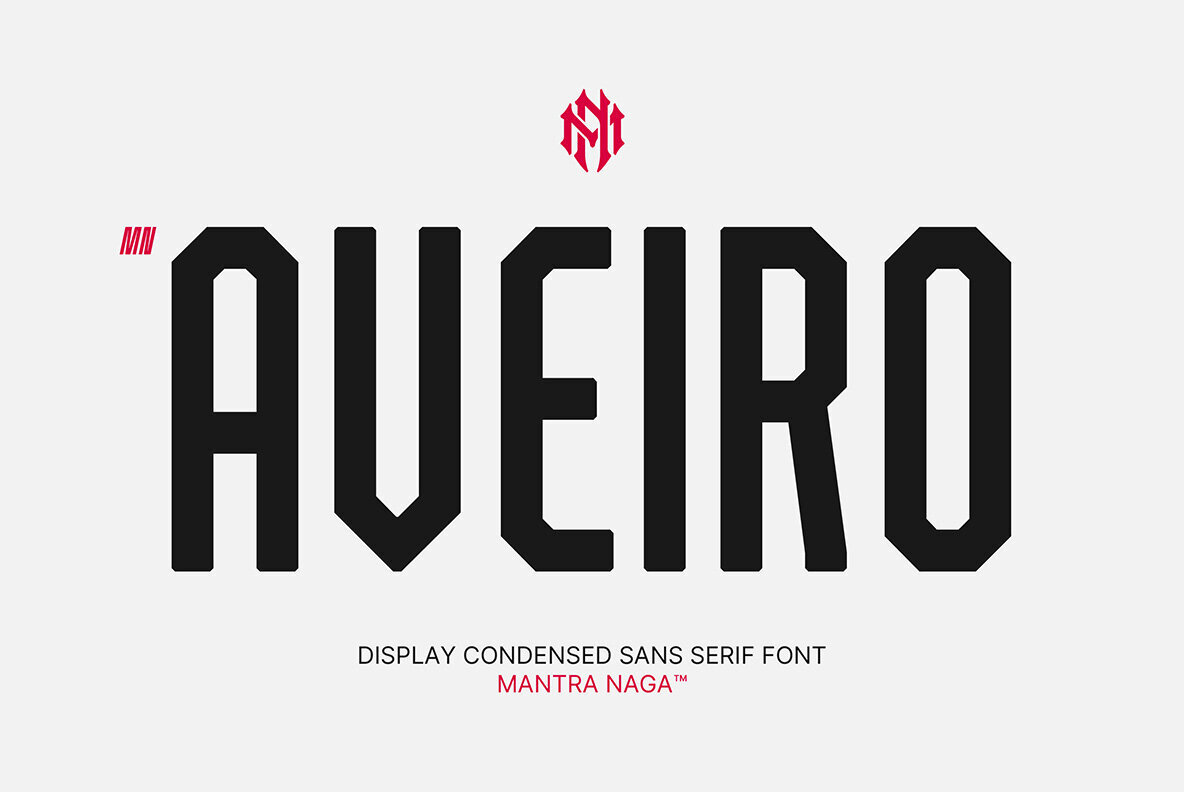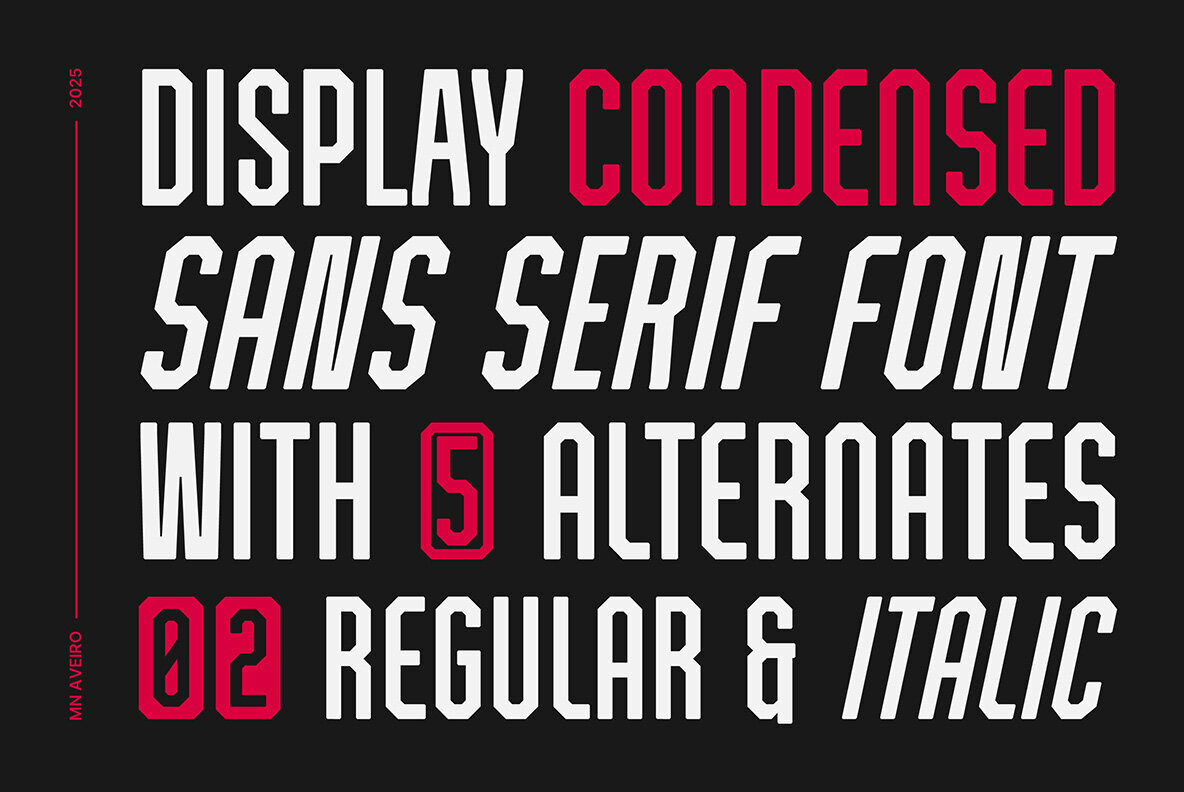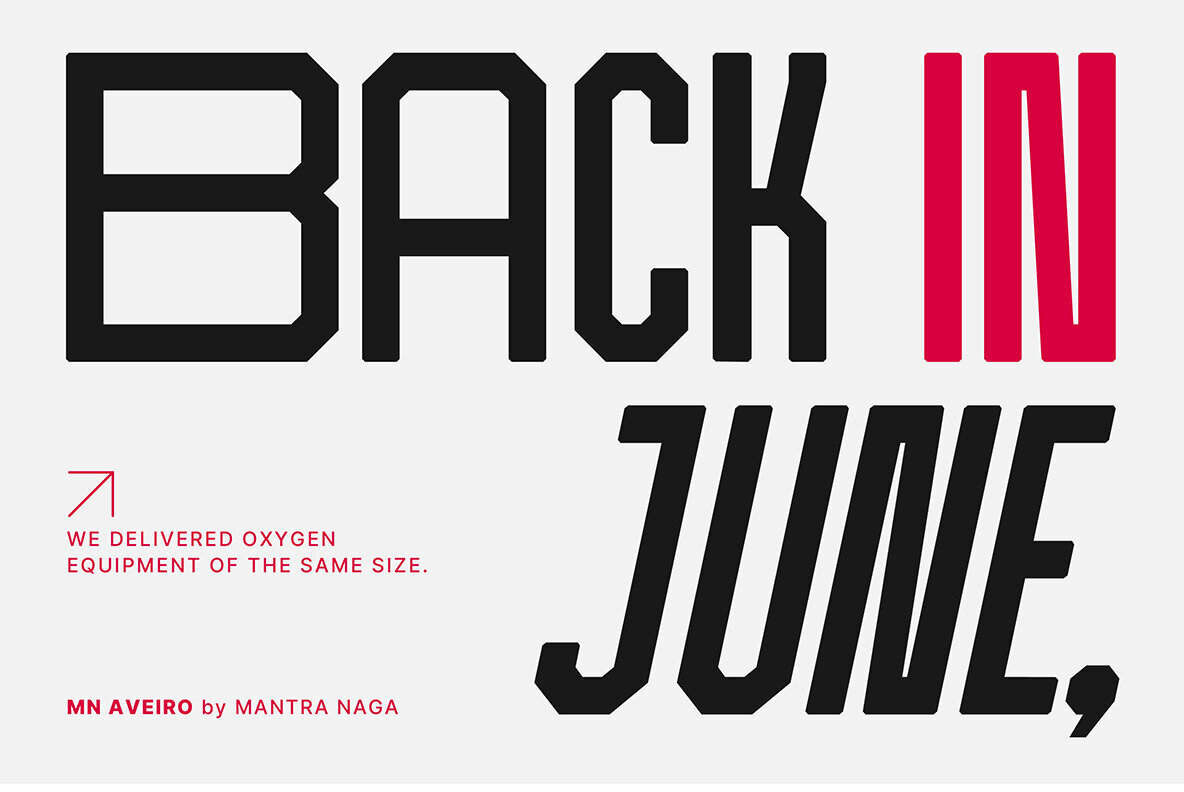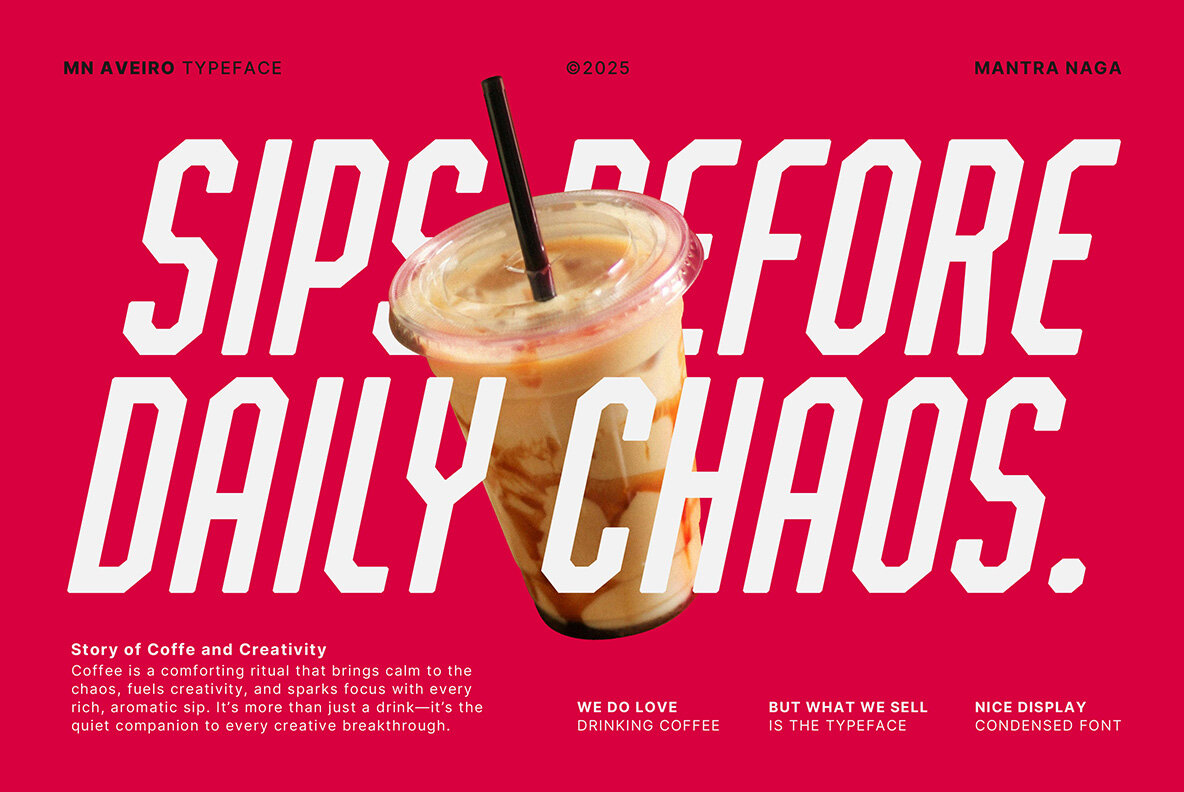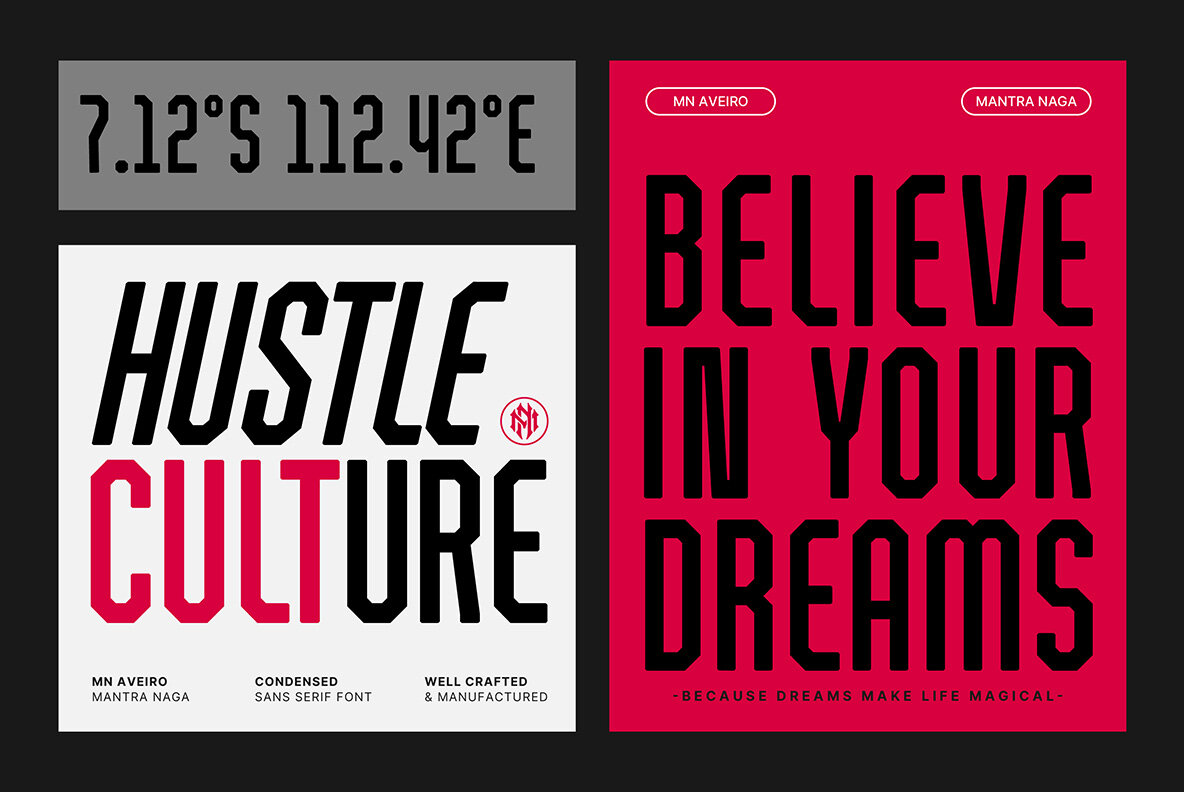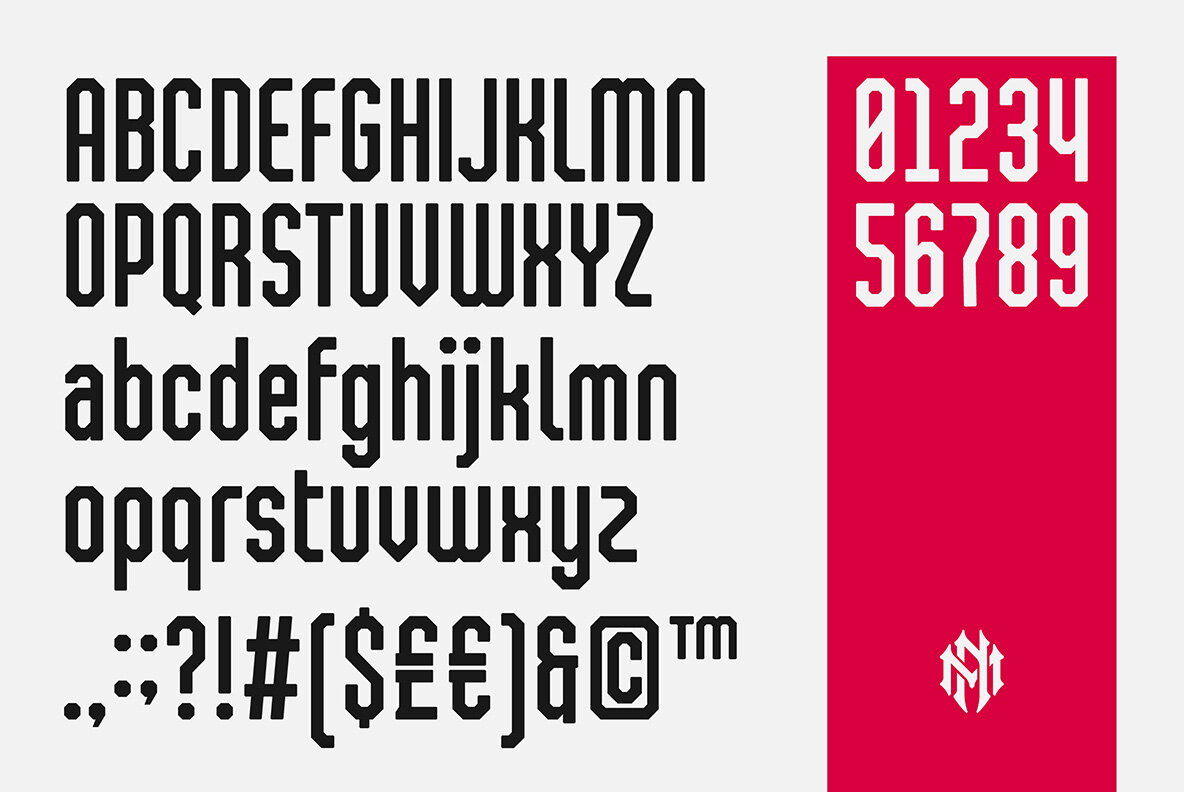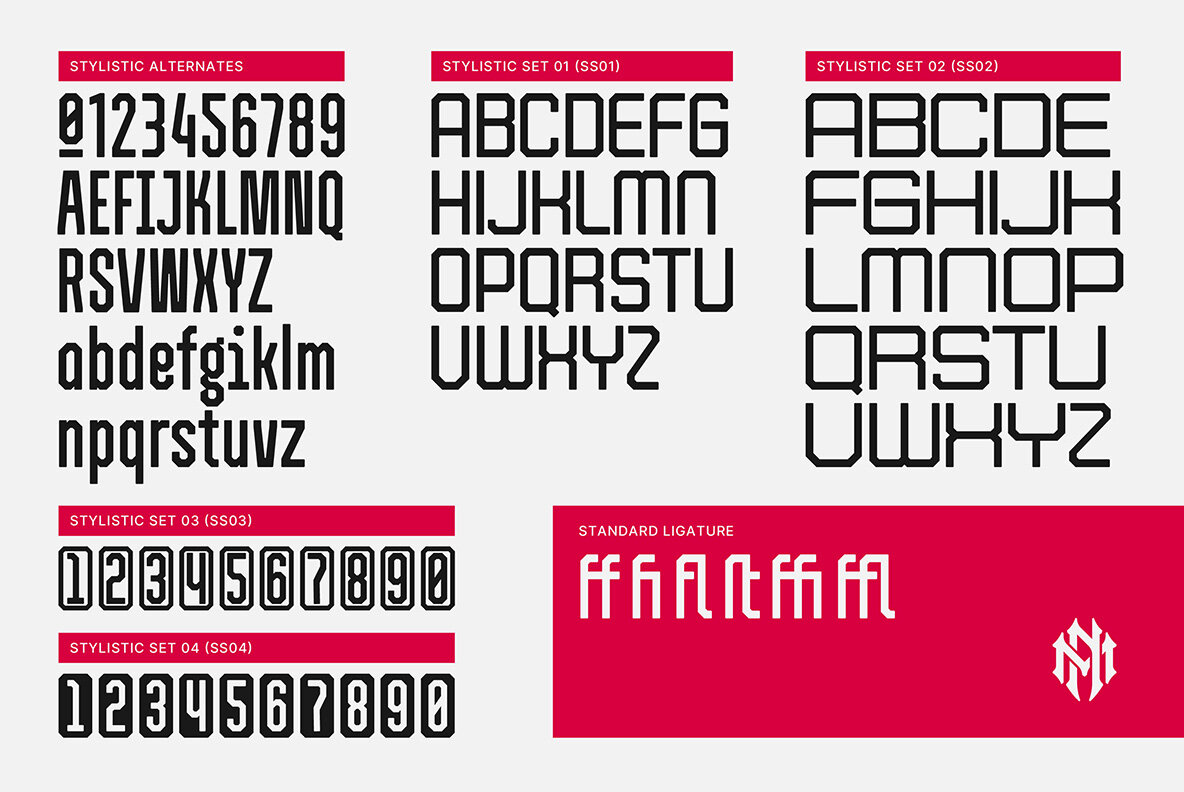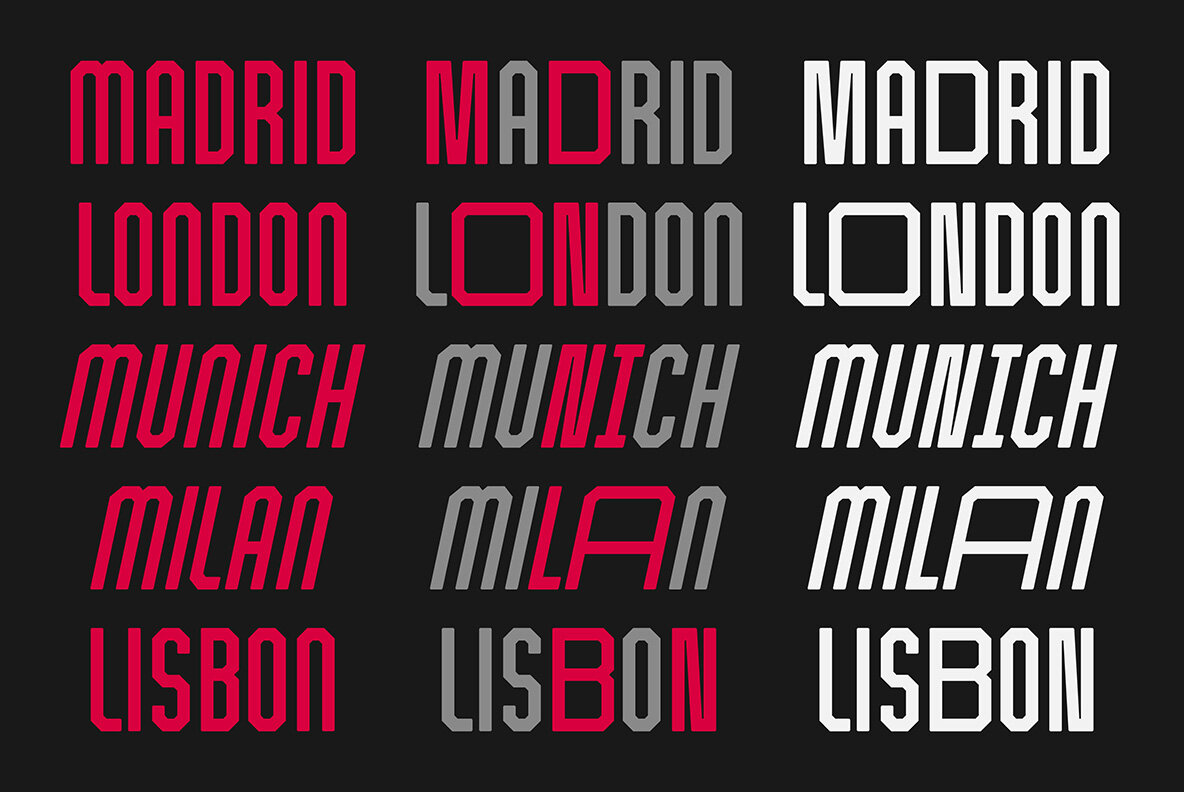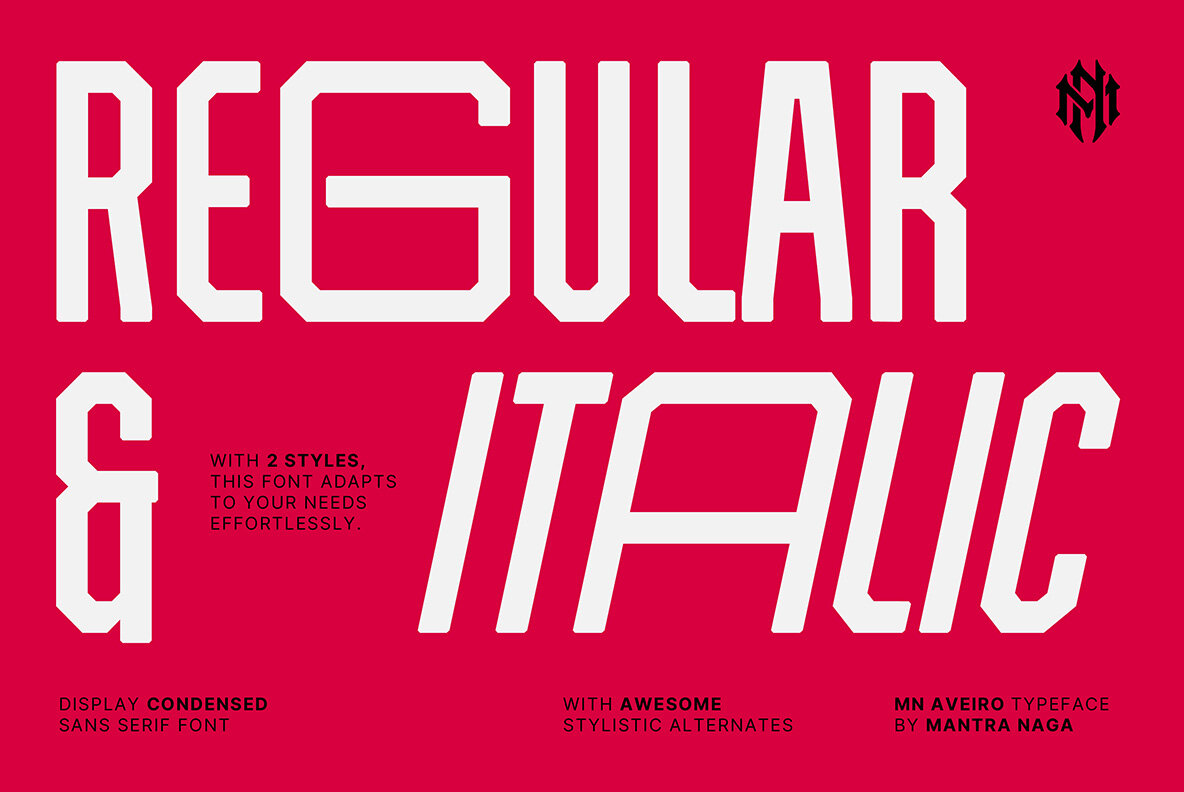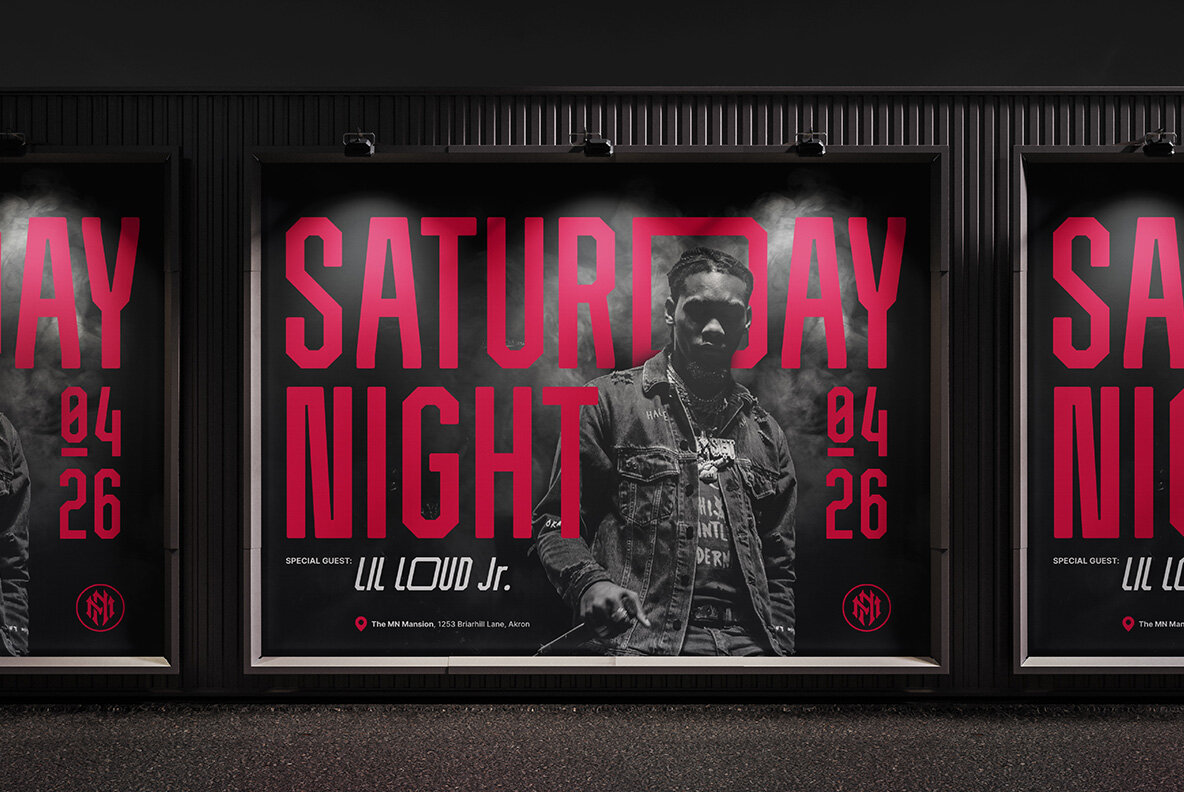
MN Aveiro Font
MN Aveiro is a bold, geometric sans serif font designed for those who seek impact and clarity. This condensed display font features sharp angles and tight spacing, characterized by its solid vertical strokes that naturally draw attention. With its distinct, architectural letterforms, MN Aveiro is an excellent choice for headlines, posters, branding projects, sports designs, and urban themes. Elevate your projects with a font that embodies modernity and confidence, ensuring a striking visual presence while maintaining exceptional readability.MN Aveiro Display Font